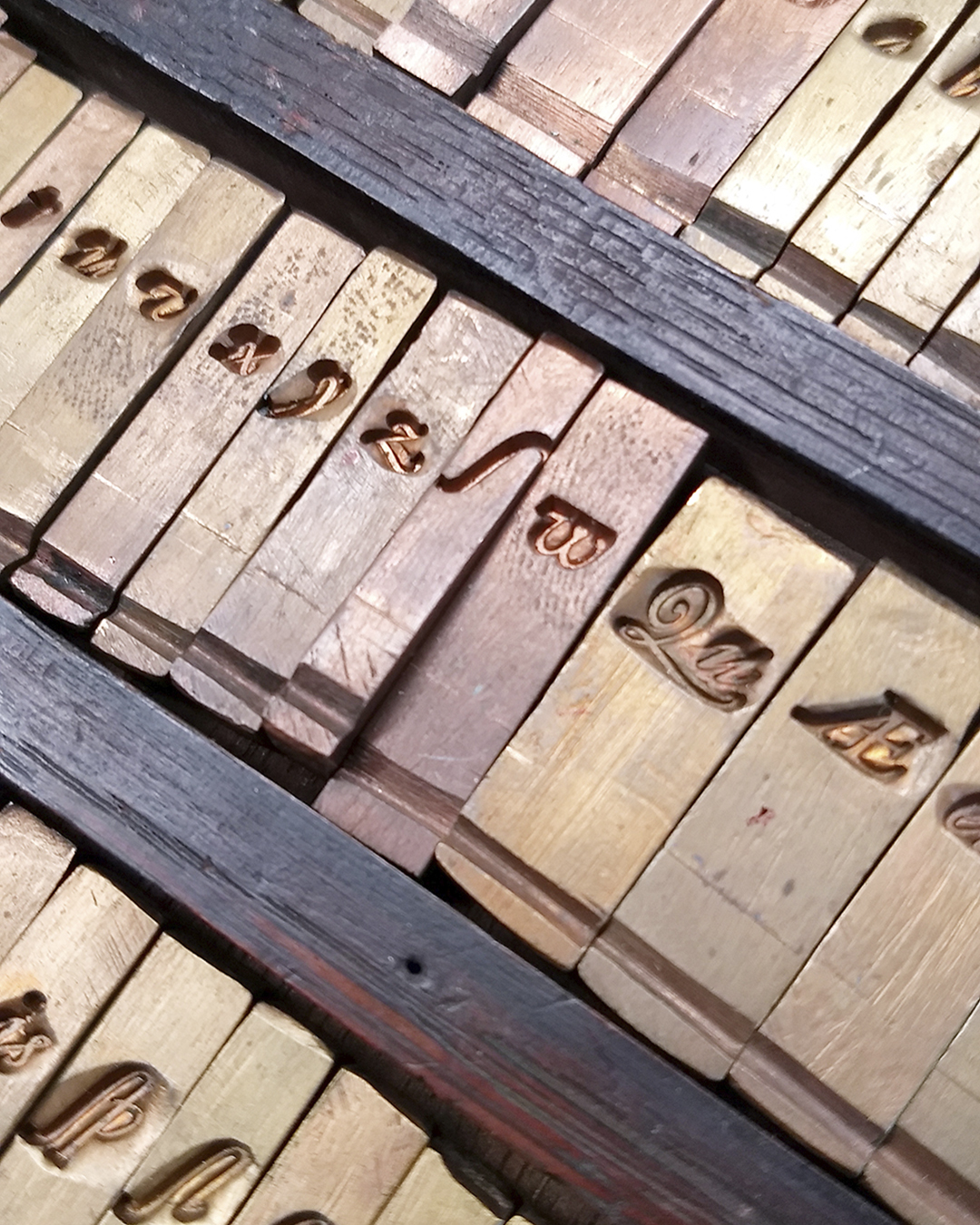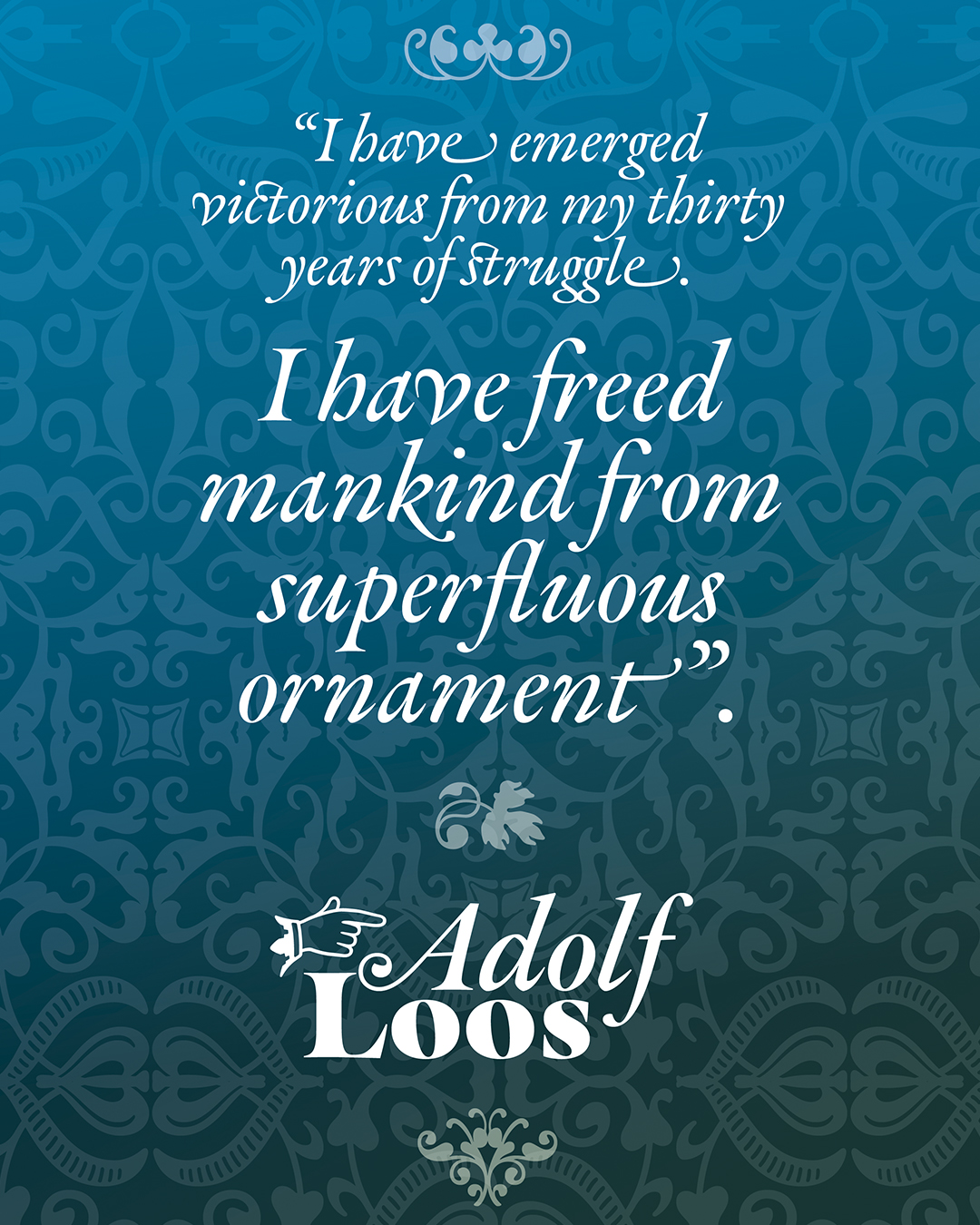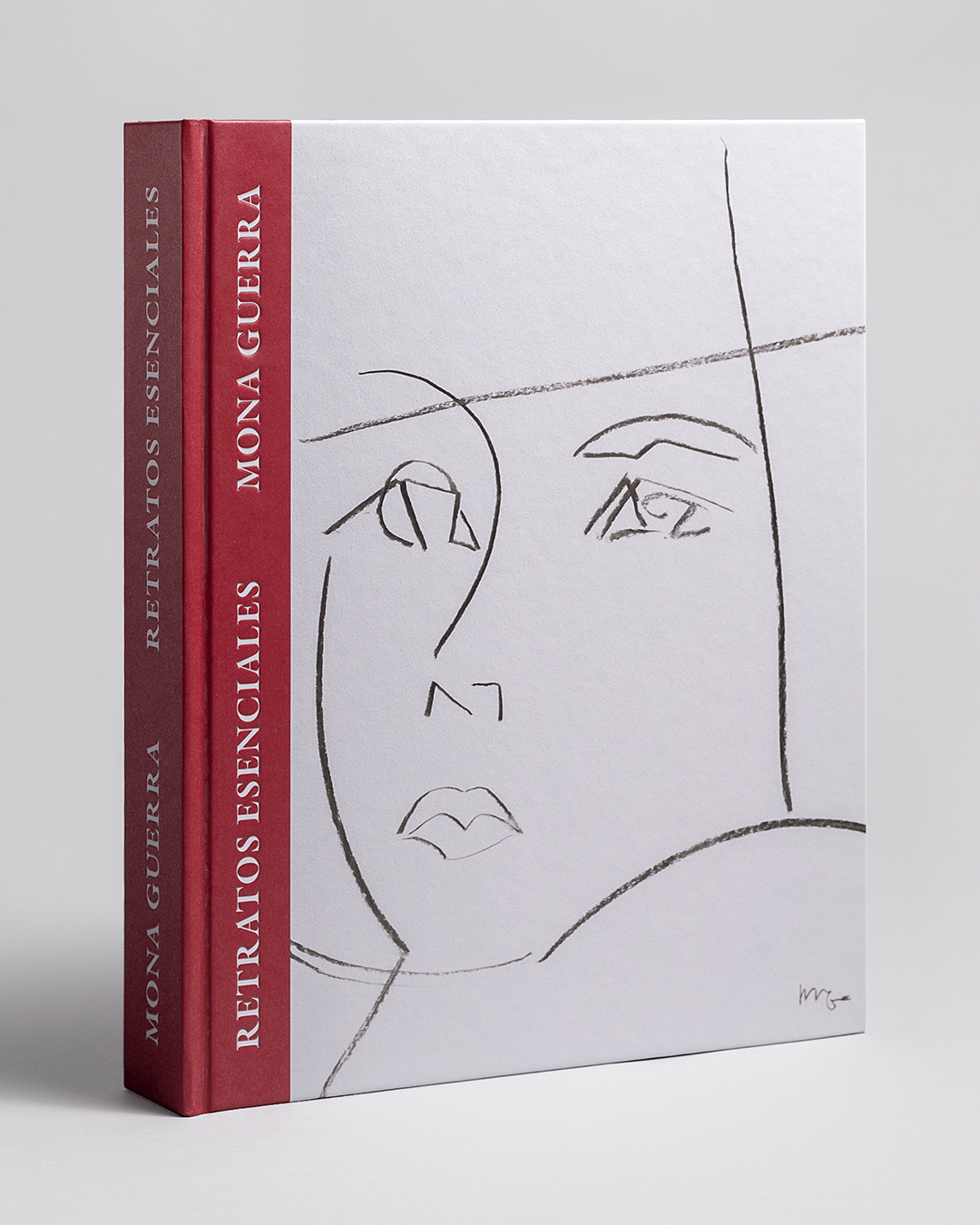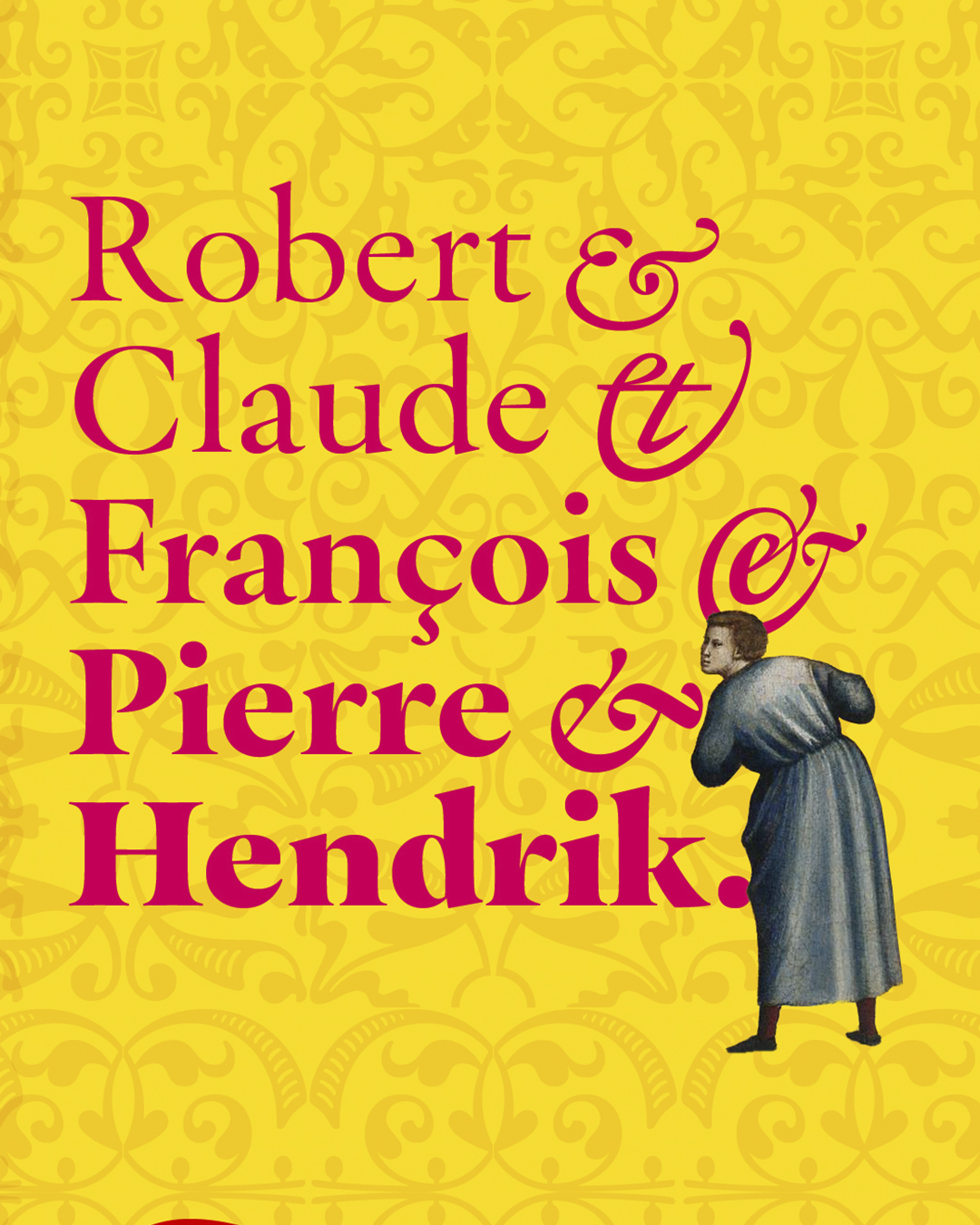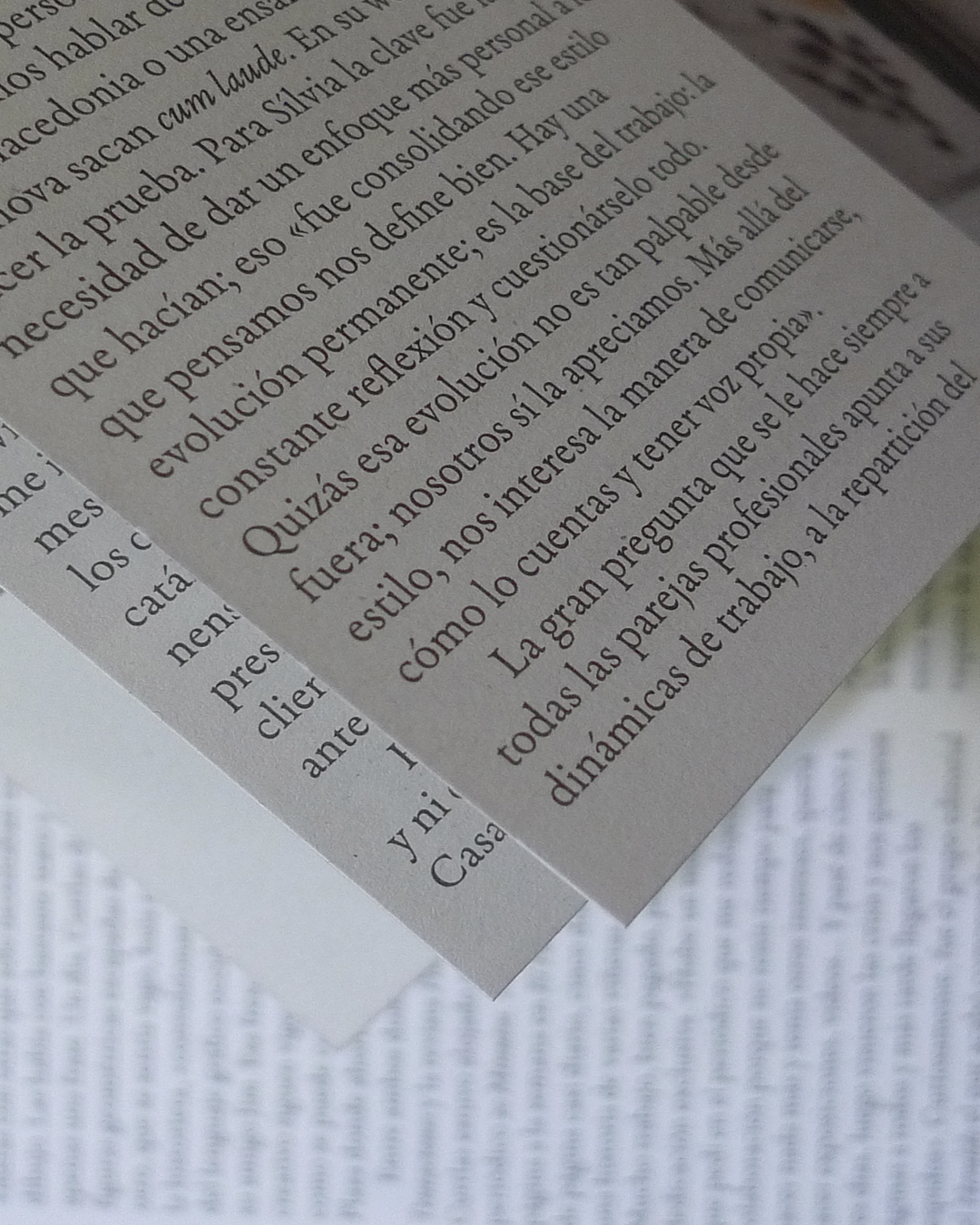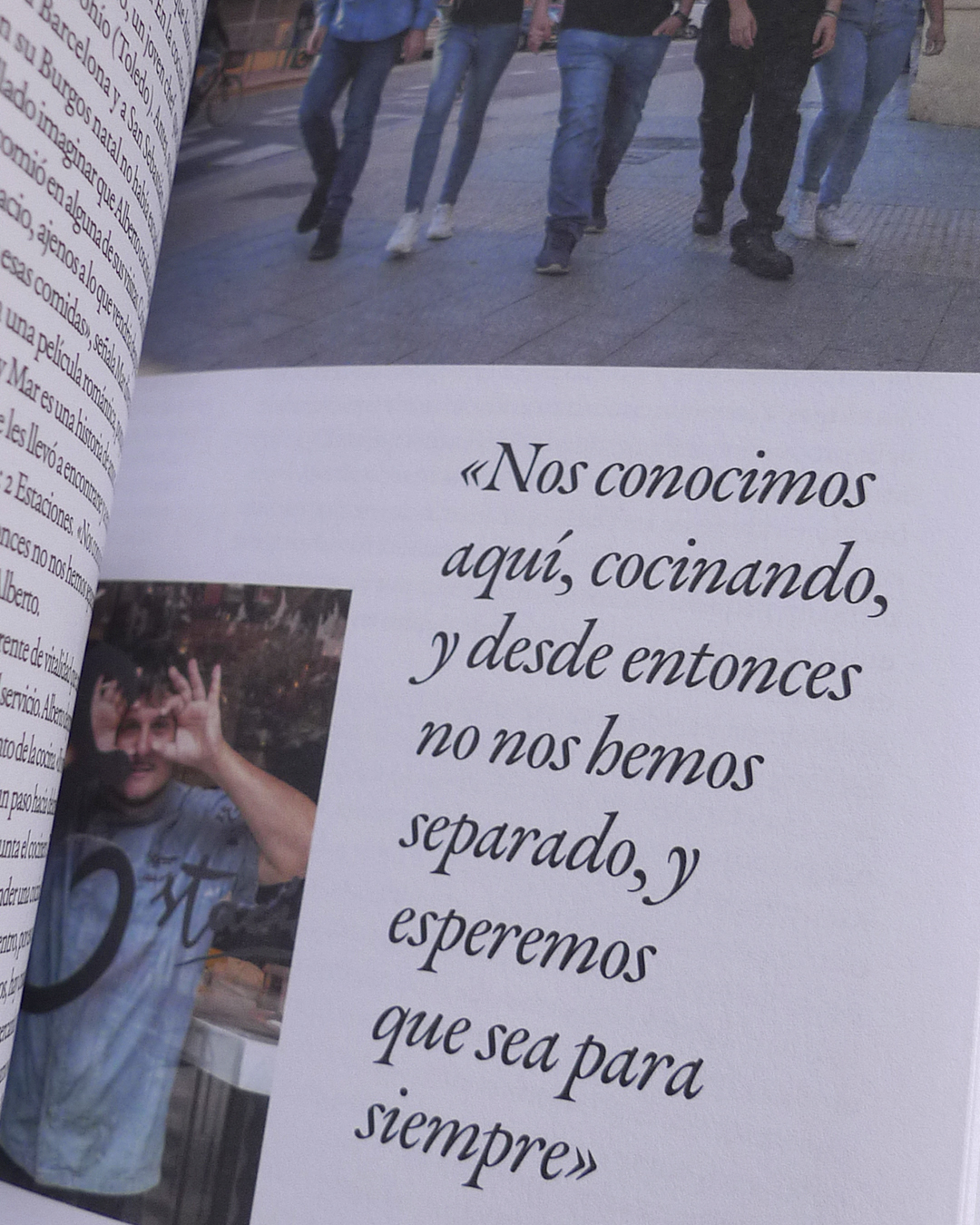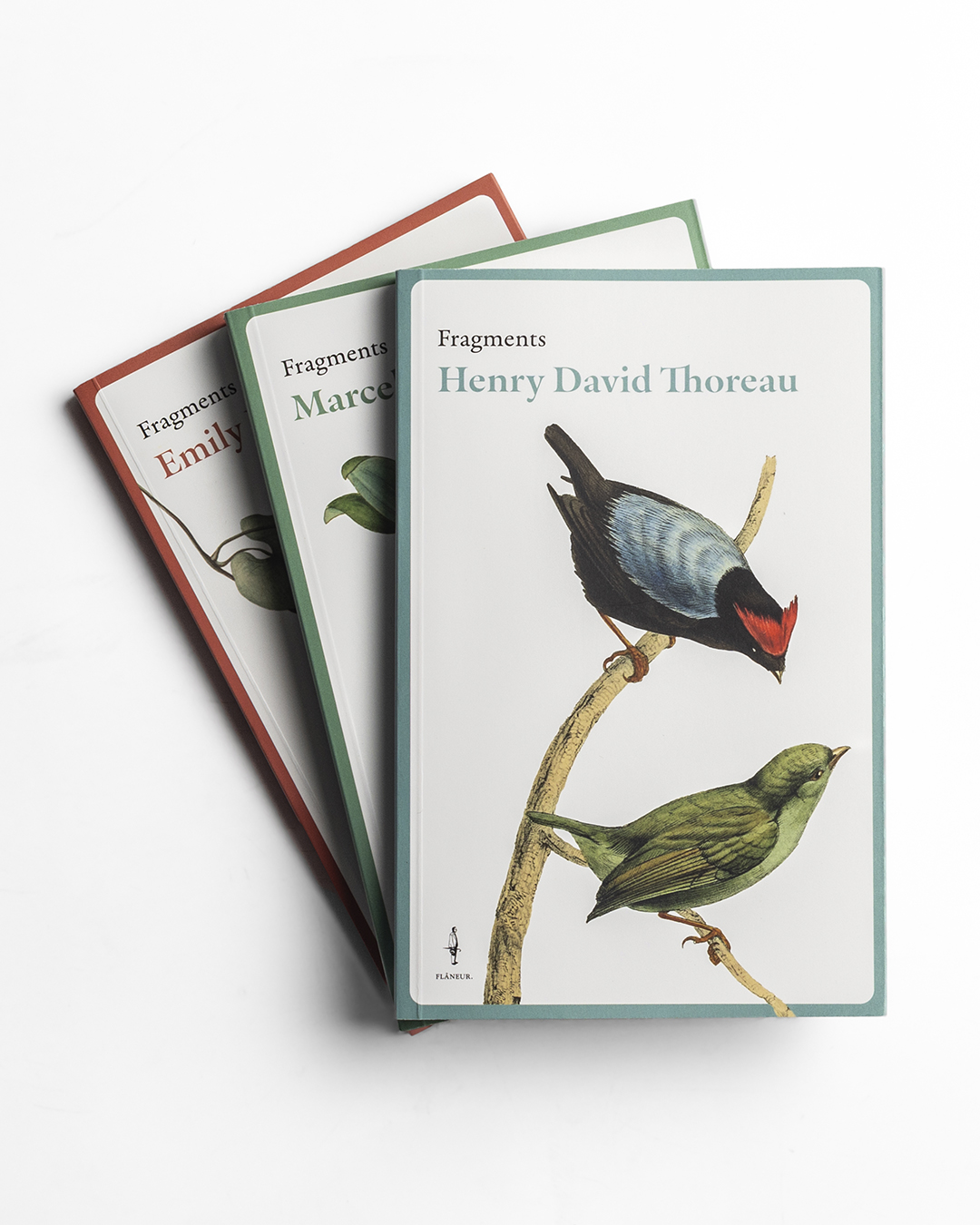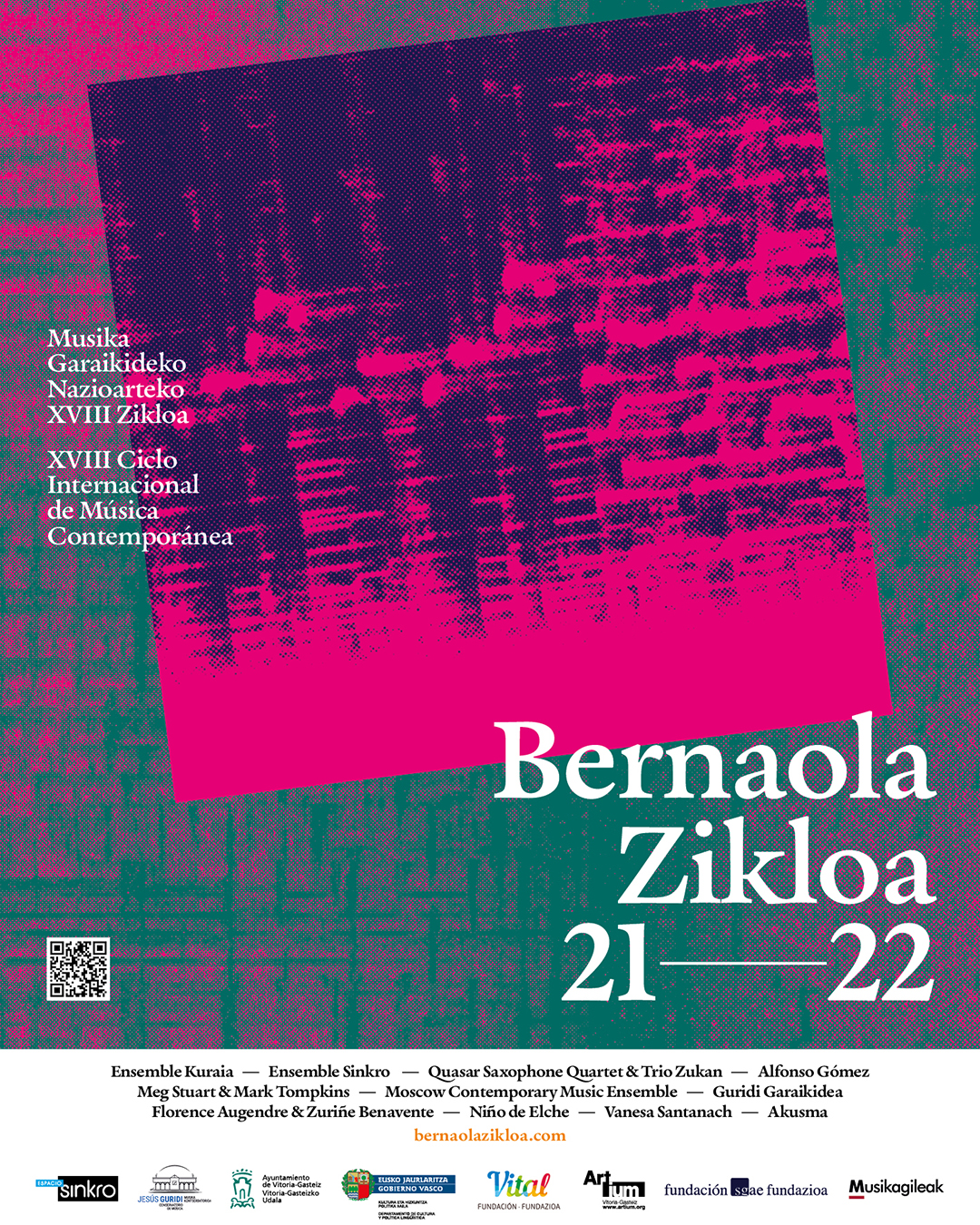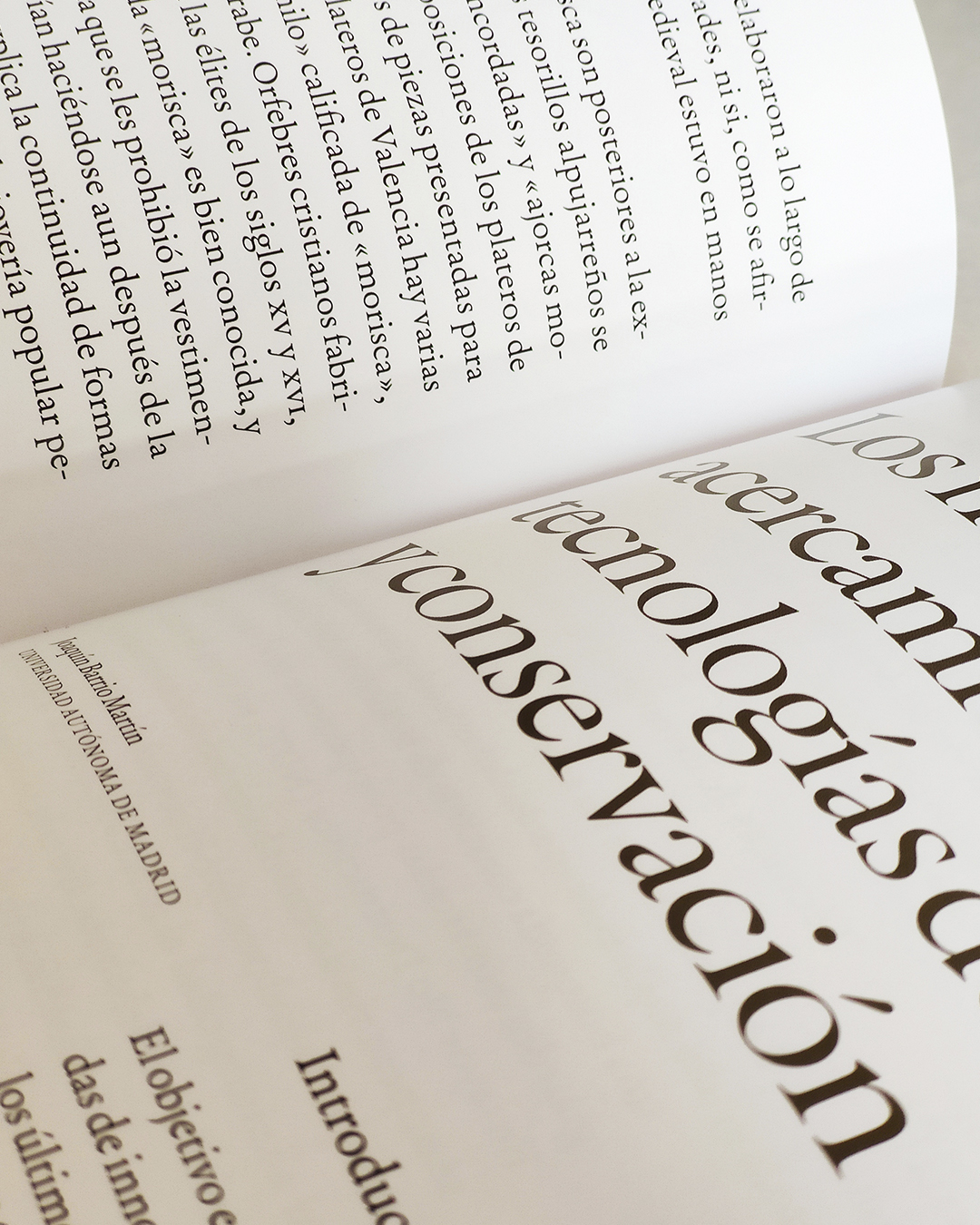
Graveur
Graveur is a Renaissance style text face based in the work of the French punchcutter Robert Granjon (1513-1589).
Started as my project at Expert Class in Type Design in Antwerp, Graveur has grown to become a typeface with four optical sizes and seven weights, plus italics and an ornaments font. It also has variable fonts for extra fine tuning.
Working on original artifacts kept in Museum Plantin-Moretus in Antwerp, observation of his punches, matrices and printed materials resulted in a extense type family. Despite been a Granjon style typeface, Graveur tries to capture the overall style of Granjon rather than simply being a slavish copy of a particular source.
With a huge character set and a heavy use of OpenType features, Graveur is a Granjon style typeface that will fit any of your Renaissance person needs.
In 2022, Graveur was awarded with GOLD in Text Typefaces category in the European Design Awards.
Graveur
Styles 7 weights, 4 optical sizes with italics + ornaments + 2 variable fonts: 59 fonts
Glyphset 1189 glyphs (1416 in italic)
Designed by Juanjo López
Year 2021